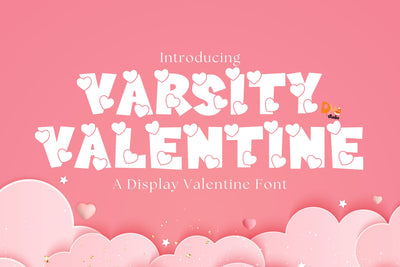
Varsity Valentine
Varsity Valentine – Romantic & Playful Love-Themed Font
Varsity Valentine is a charming and stylish display font that blends classic varsity-style lettering with a romantic touch. Perfect for Valentine's Day projects, love letters, wedding invitations, greeting cards, branding, and decorative typography, this font brings a sweet and heartfelt vibe to any design.
- Romantic Varsity-Inspired Design: A unique mix of bold varsity lettering with a soft and loving feel.
- Perfect for Love & Valentine’s-Themed Projects: Ideal for Valentine’s cards, wedding decor, gift packaging, and romantic branding.
- Versatile & Eye-Catching: Works great for headlines, social media posts, invitations, and decorative designs.
- Complete Character Set: Includes uppercase, lowercase, numbers, punctuation, and multilingual support.